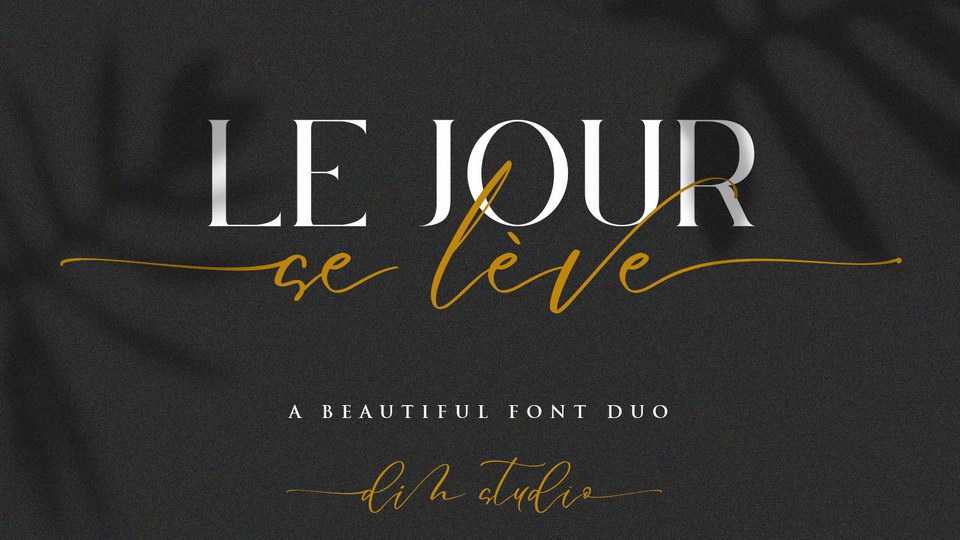
Download Le Jour font duo, a beautiful calligraphy script made with naturally handwritten combined with modern serif. The combination of the font will make your design stylish and luxury.